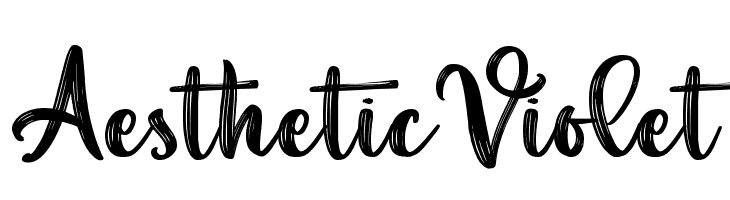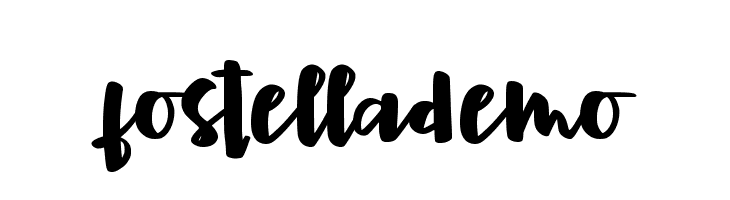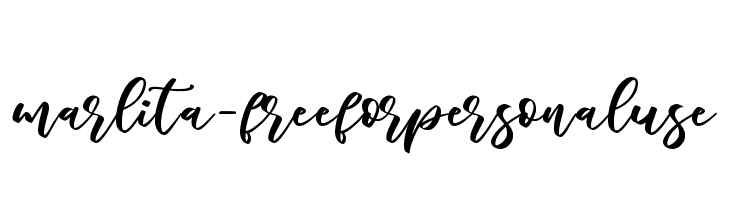
A bold, playful handwritten font with a modern and dynamic style.
A lively and expressive handwritten font with dynamic strokes.
A bold, brush-style font with an adventurous and expressive character.
A flowing, cursive script font with a personal and elegant touch.
An ornate, floral-decorated font ideal for elegant and personalized designs.
A bold, hand-drawn font with a playful and artistic style.
A bold, expressive handwritten script with a brush-like texture.
A playful, handwritten font with a modern and lively style.
A modern, elegant script font with flowing, cursive strokes.
A fluid, cursive font with a natural handwriting style.